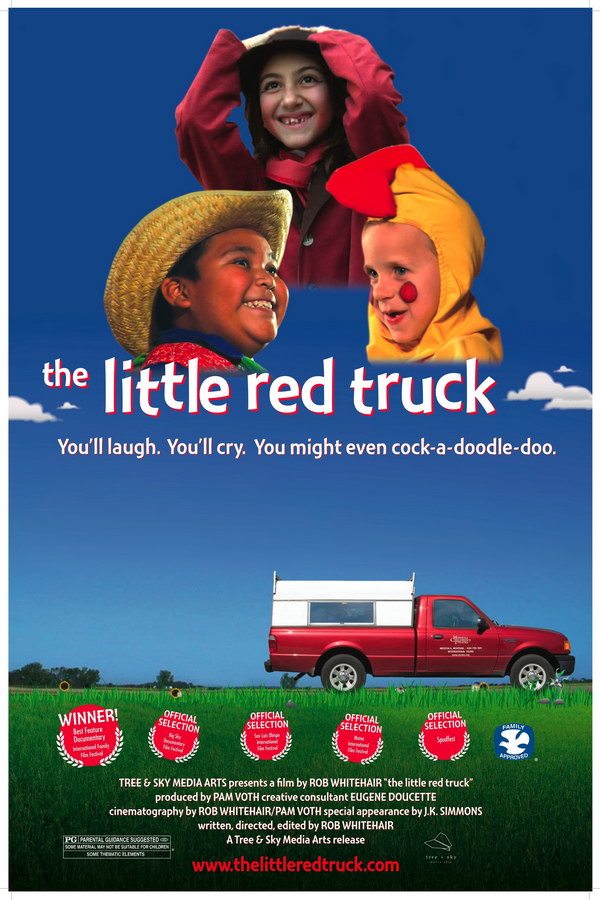
The Little Red Truck Font
The movie title on the poster probably uses Montara Gothic font, inspired by "Gothic" showcard lettering used by American sign painters in the early 1900s. Created by Jim Parkinson, the font is commercial, and more details can be found here.